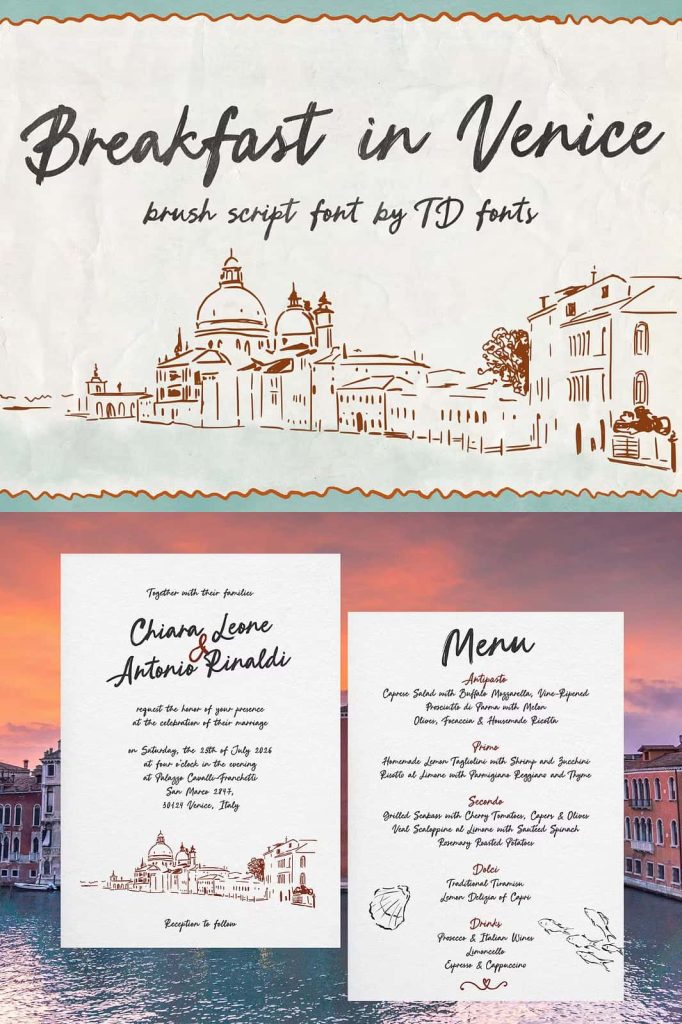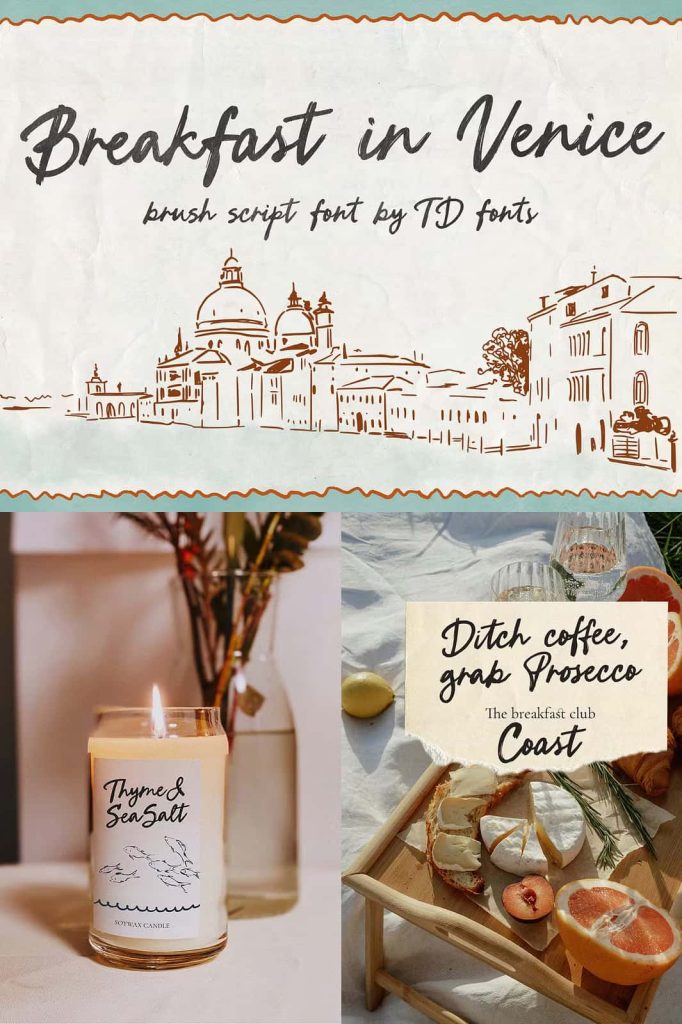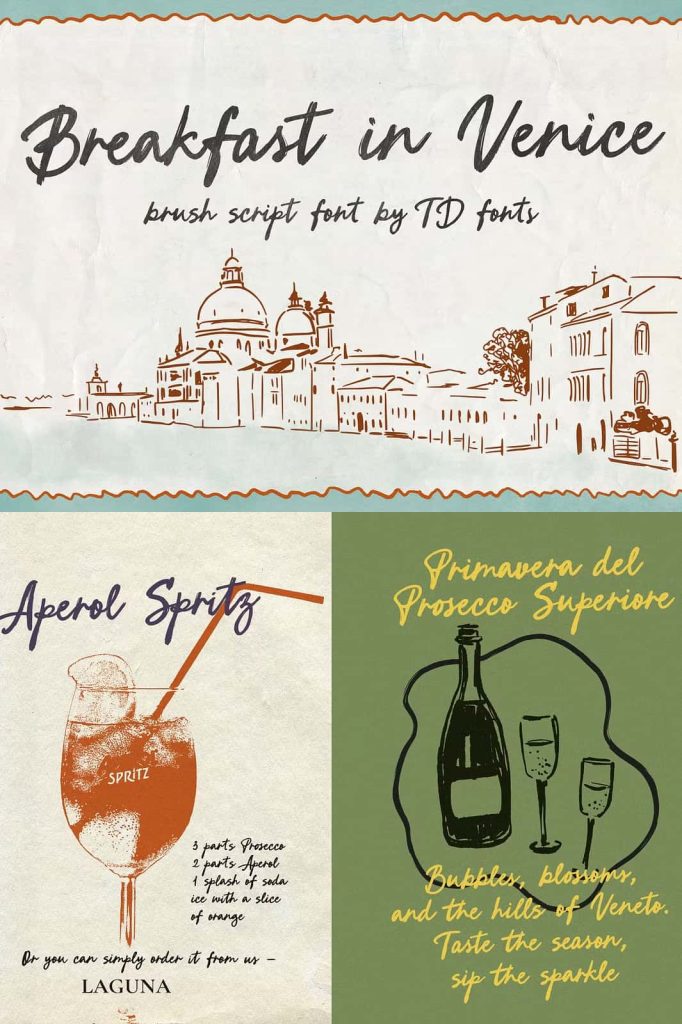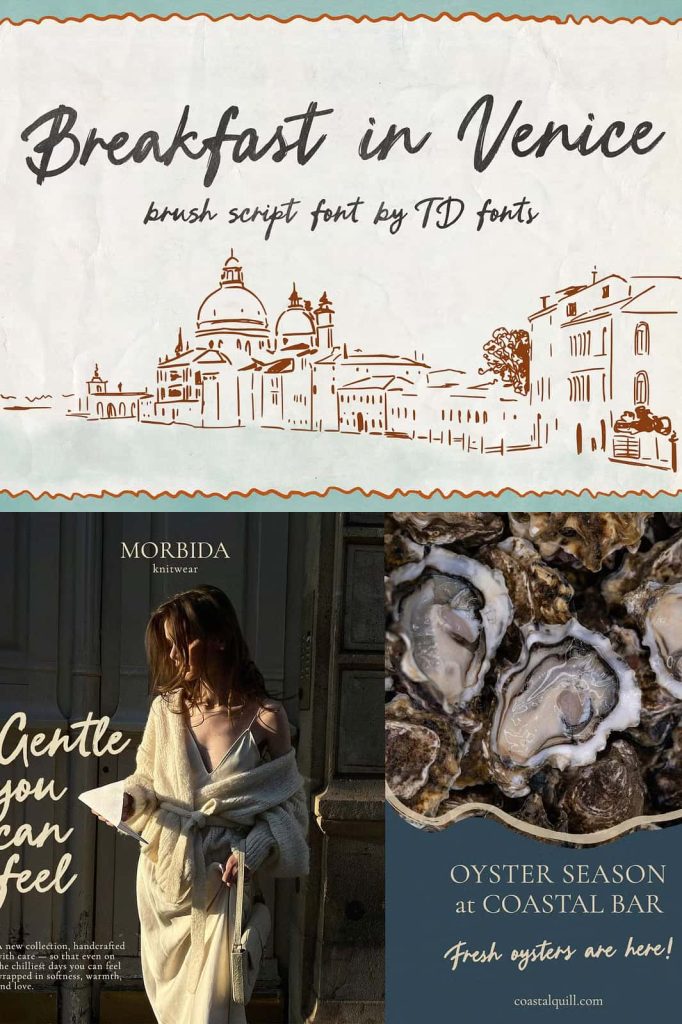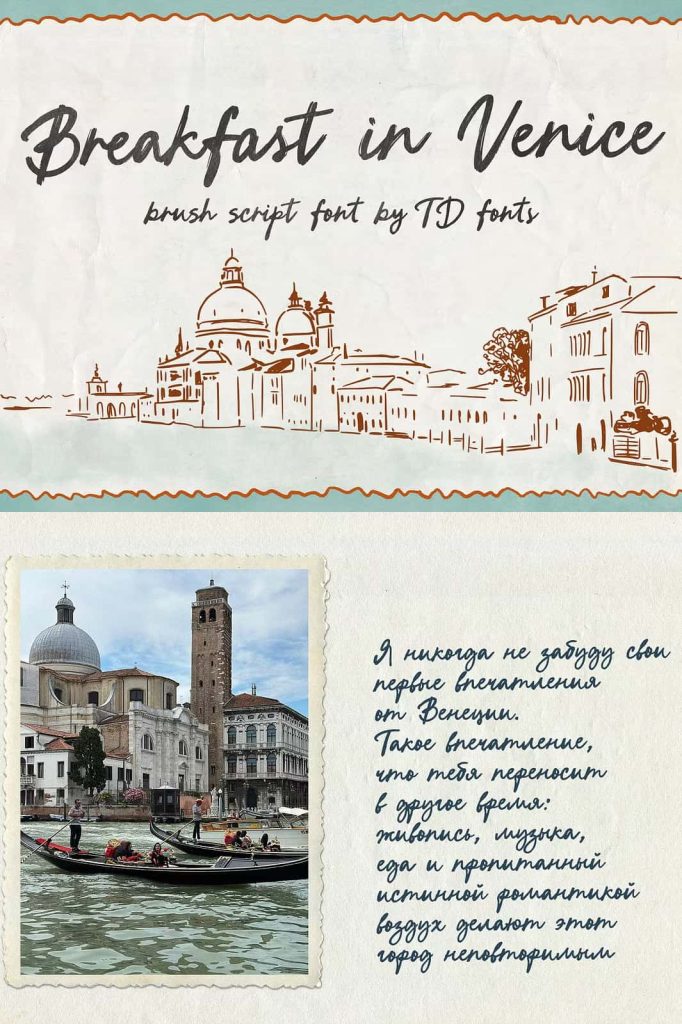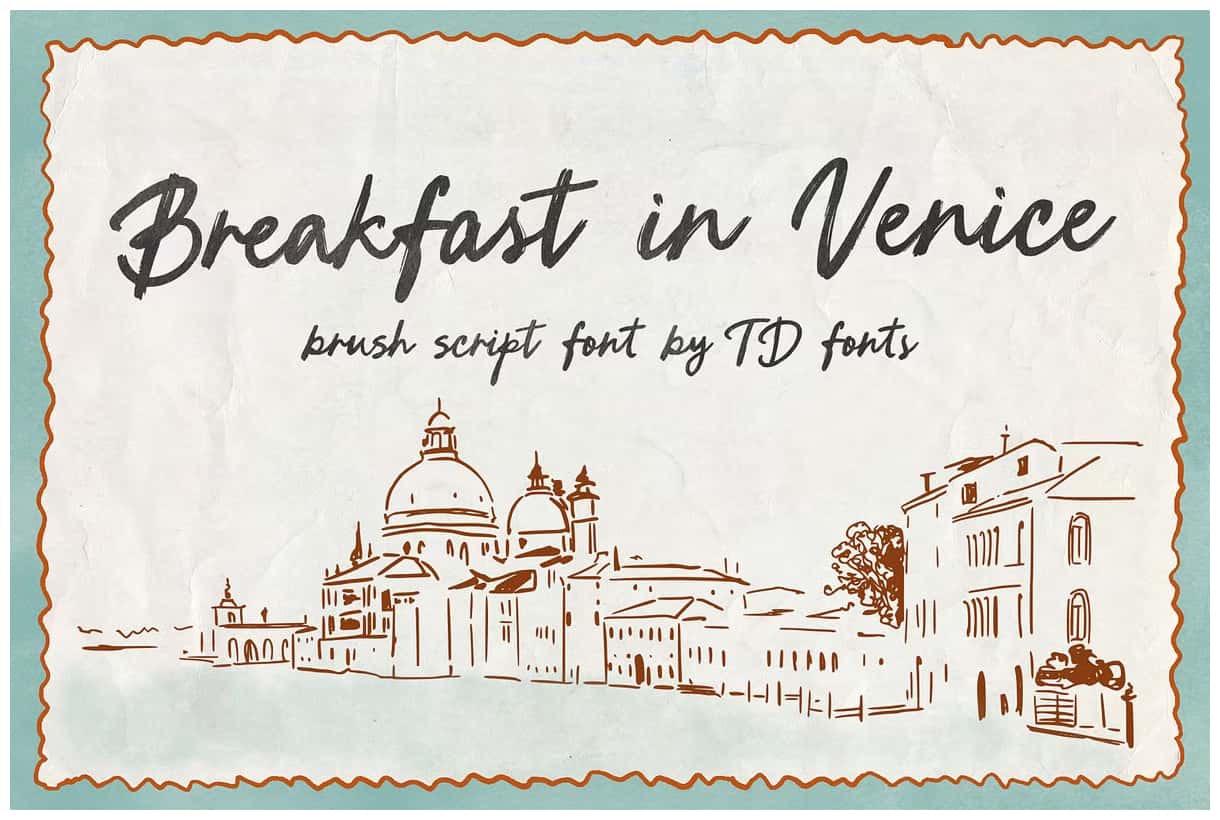
Breakfast in Venice is a bold, modern handwritten bold brush script font with multilingual support. Featuring a rich textured look and a wide set of alternates, it feels both organic and full of energy.
Add a touch of imperfection and capture attention with Breakfast in Venice — a hand-drawn script with playful quirks and a vivid personality.